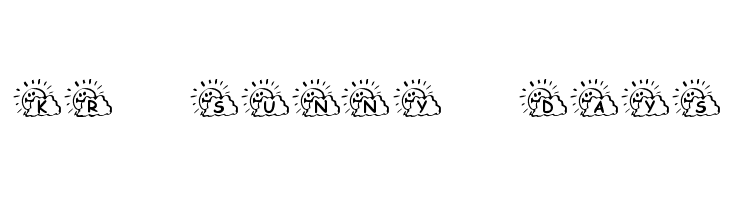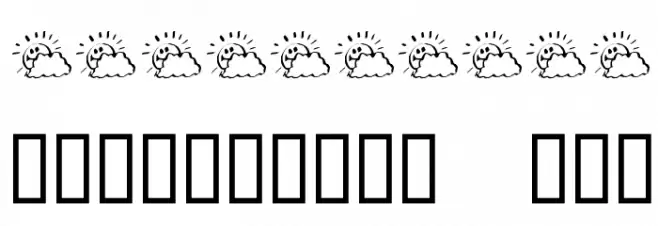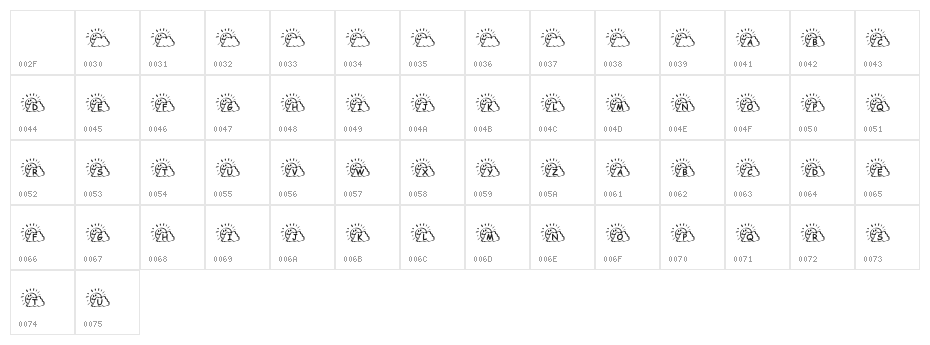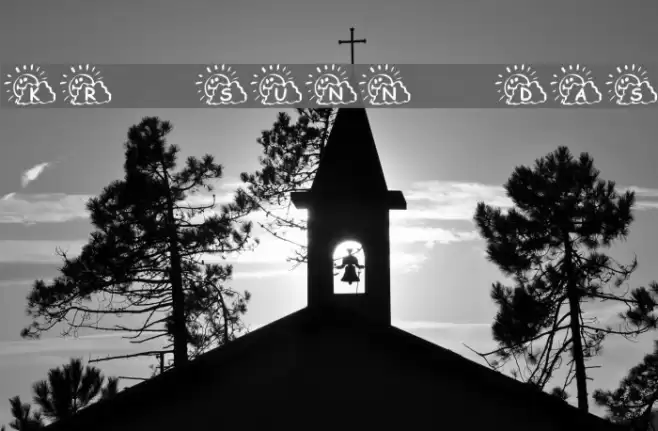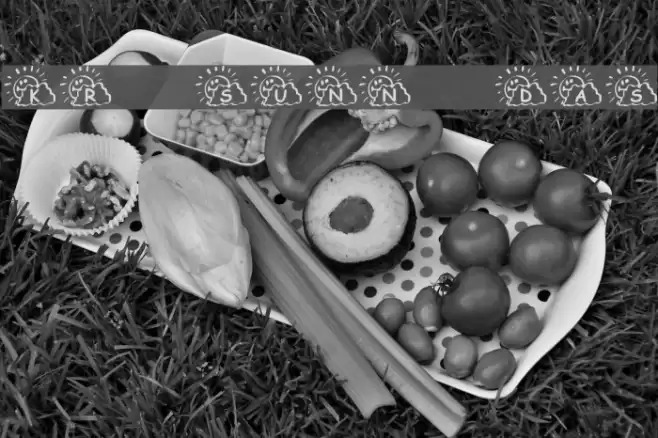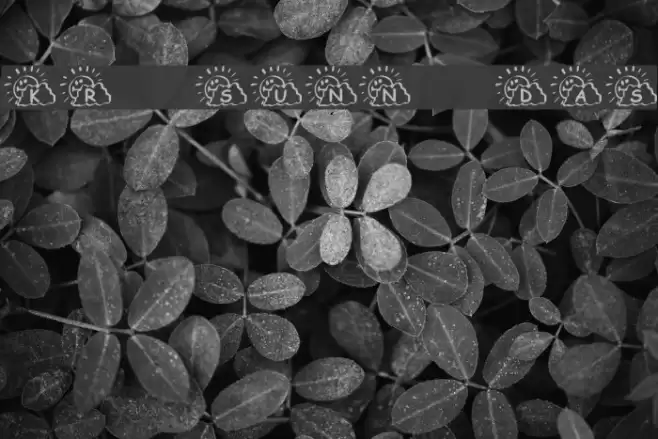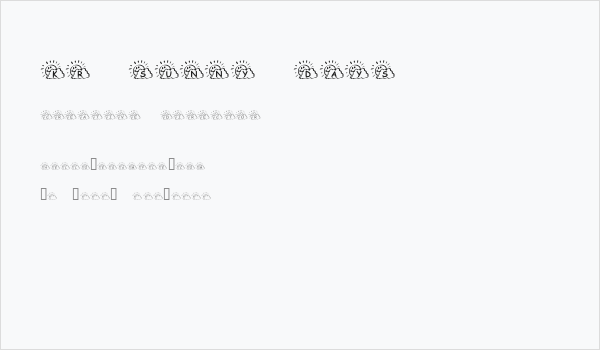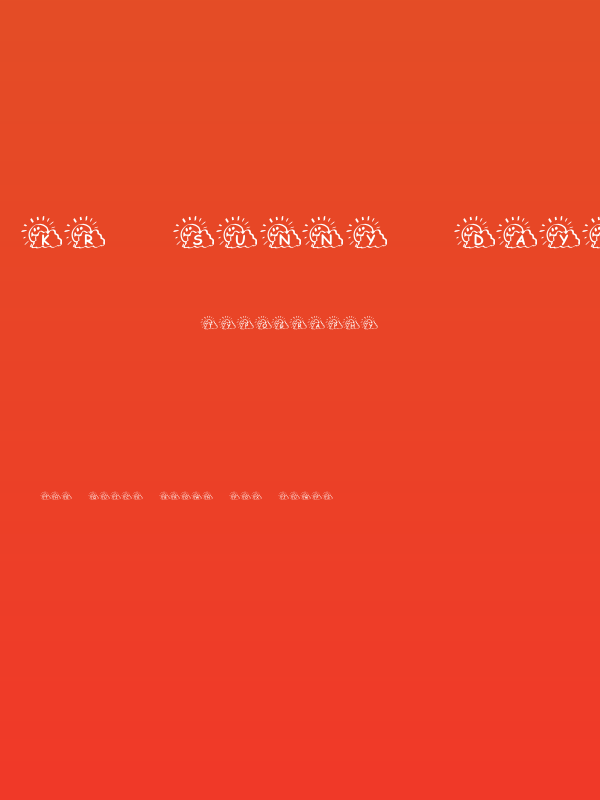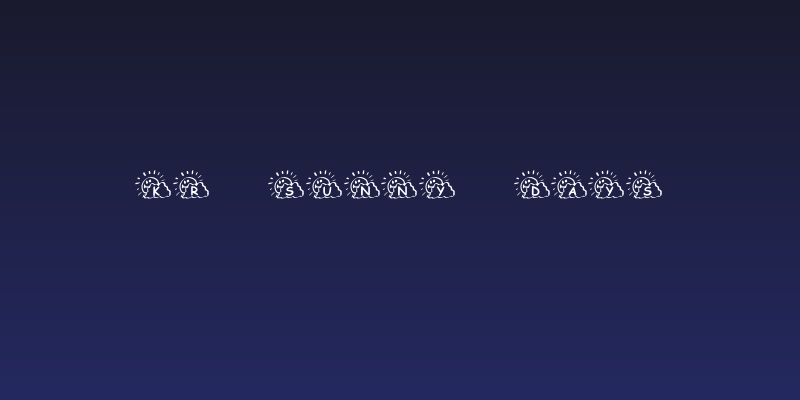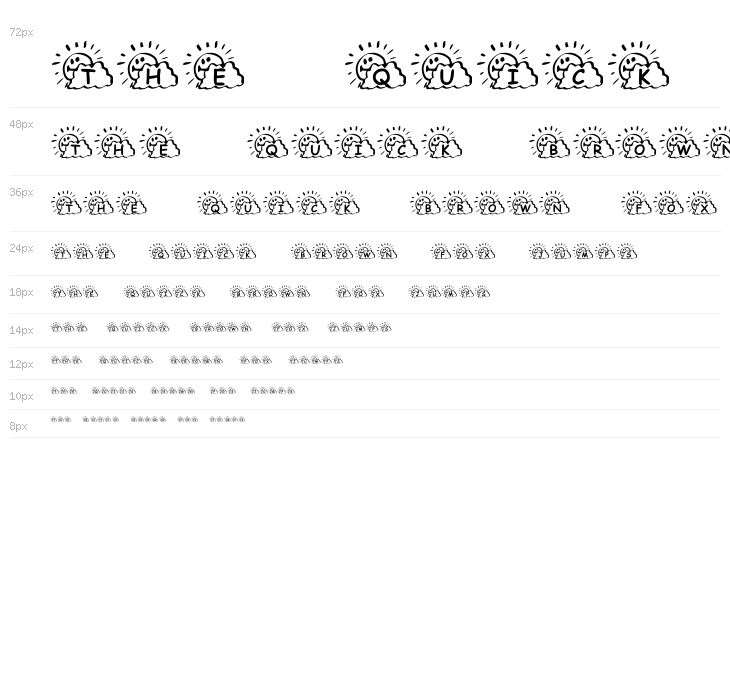
KR Sunny Days Font
KR Sunny Days Description
This playful and whimsical font features each character nestled within a cheerful sun and cloud motif. The letters are bold and cartoonish, exuding a sense of fun and lightheartedness. The sun's rays radiate outward, adding a dynamic and energetic feel to the design. The clouds are fluffy and soft, complementing the boldness of the letters. This font is perfect for projects that aim to convey joy, positivity, and creativity. The combination of the sun and cloud elements with the bold letters creates a unique and eye-catching aesthetic.